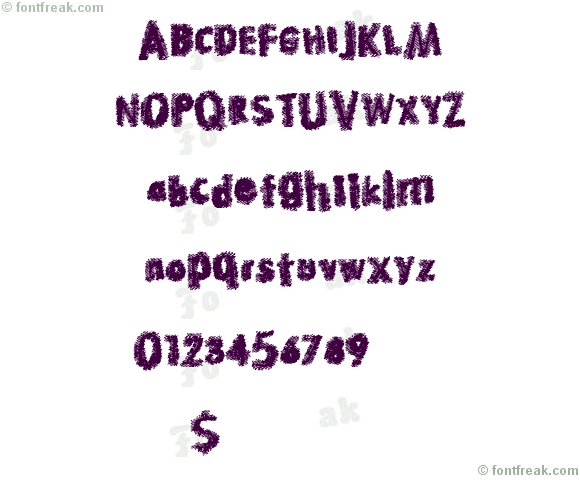
HotDiscovery
HotDiscovery by XEROGRAPHER FONTS is a striking display font that combines a playful and artistic flair, making it an excellent choice for a variety of creative projects. This font, released in 2013, showcases a unique handwritten style characterized by its irregular stroke weight and textured appearance, giving it a distinctive, organic feel. The contrast between thick and thin strokes adds dynamism, while the spacious letterforms enhance readability, making it suitable for both headlines and body text.
The HotDiscovery font is perfect for a variety of use cases. It shines in wedding invitations, where its whimsical style can convey romance and a personal touch. Additionally, it works well for movie posters, adding a sense of excitement and intrigue to visual storytelling. Restaurant menus can benefit from this font's charm, helping to create an inviting atmosphere that reflects the establishment's personality. Graphic designers will also find it useful for branding projects, as it encapsulates creativity and originality. Content creators can leverage its unique aesthetic in social media graphics to capture audience attention effectively.
The target audience for HotDiscovery includes graphic designers looking for a font that stands out, small business owners wanting to enhance their branding, and content creators aiming to engage their followers. This font appeals to anyone seeking a modern, artistic touch in their designs.